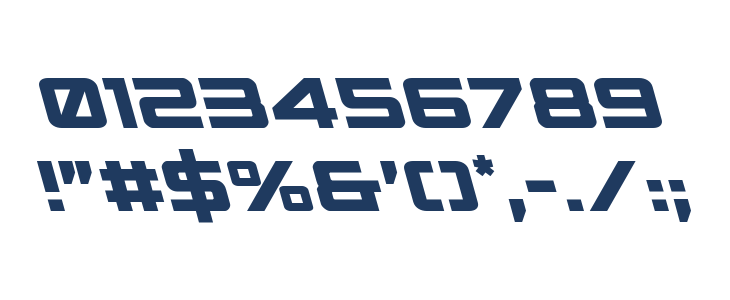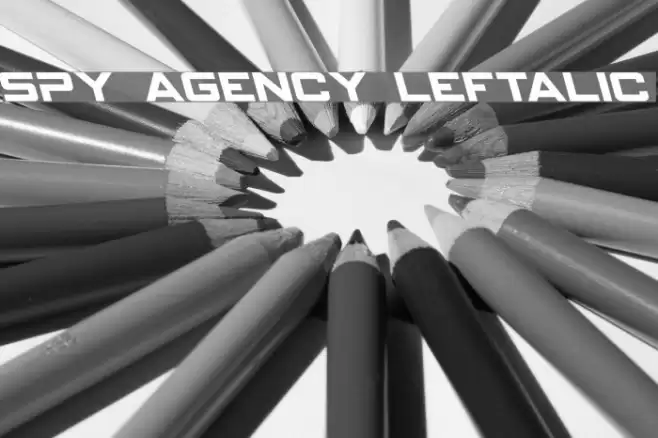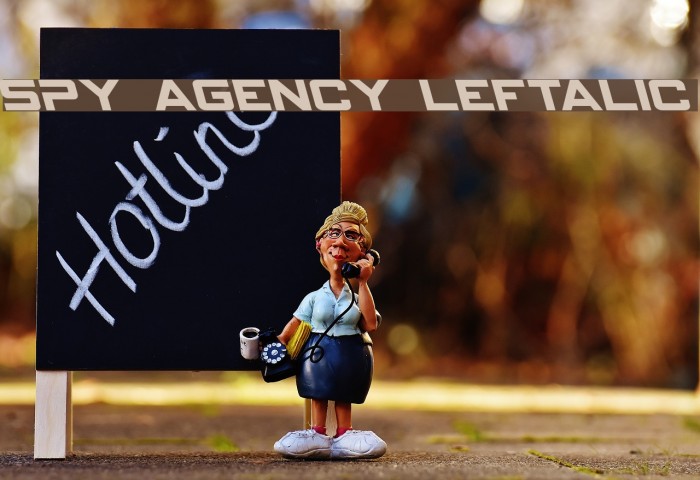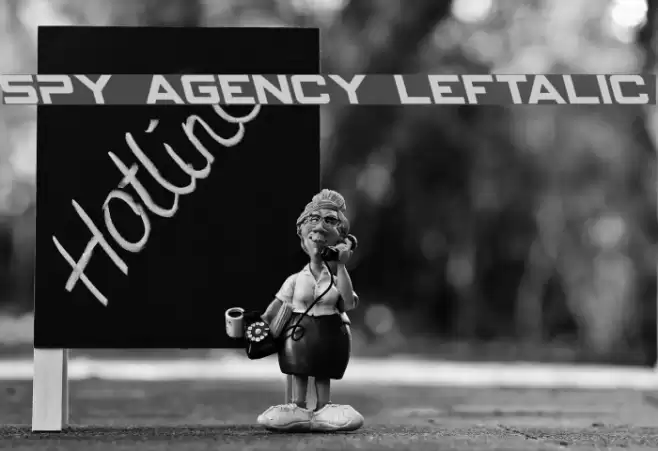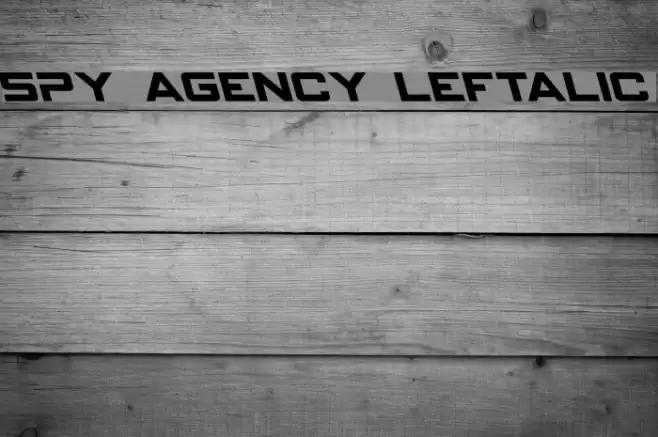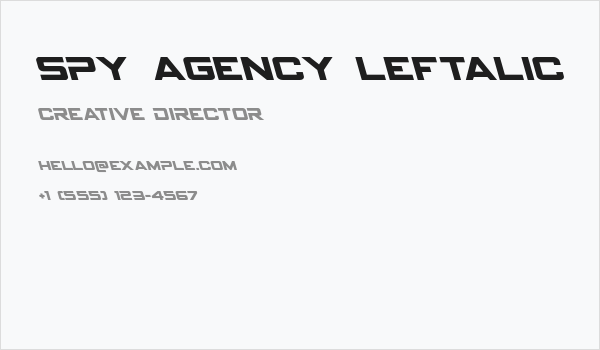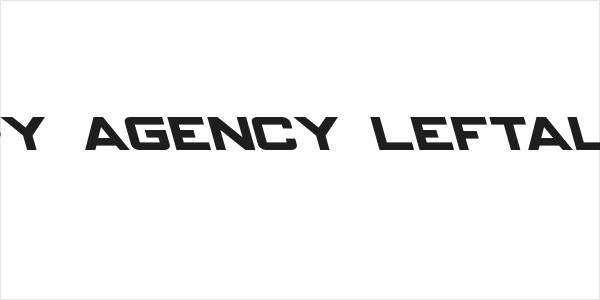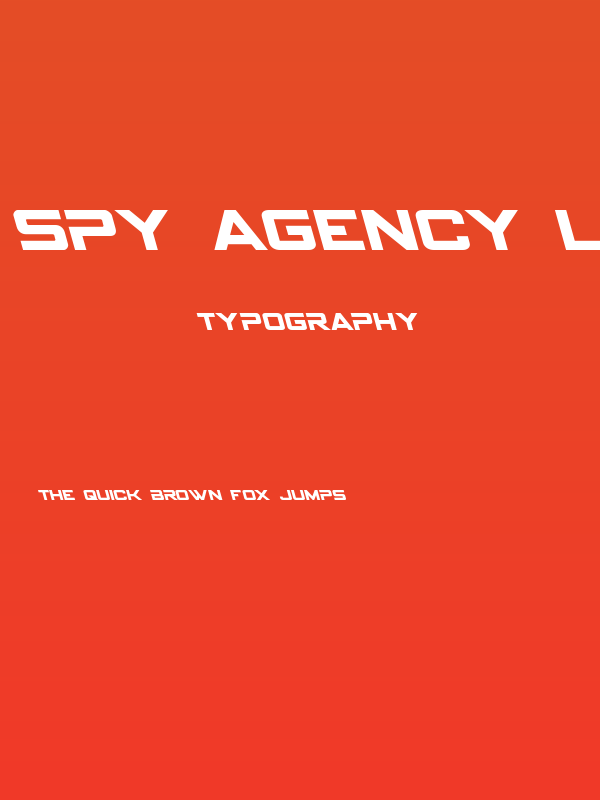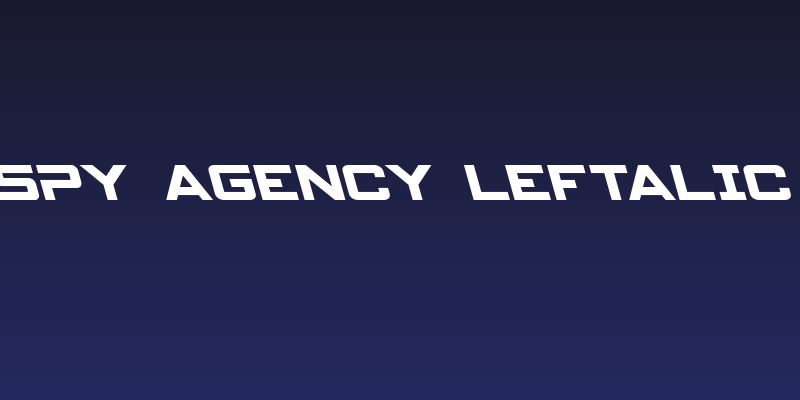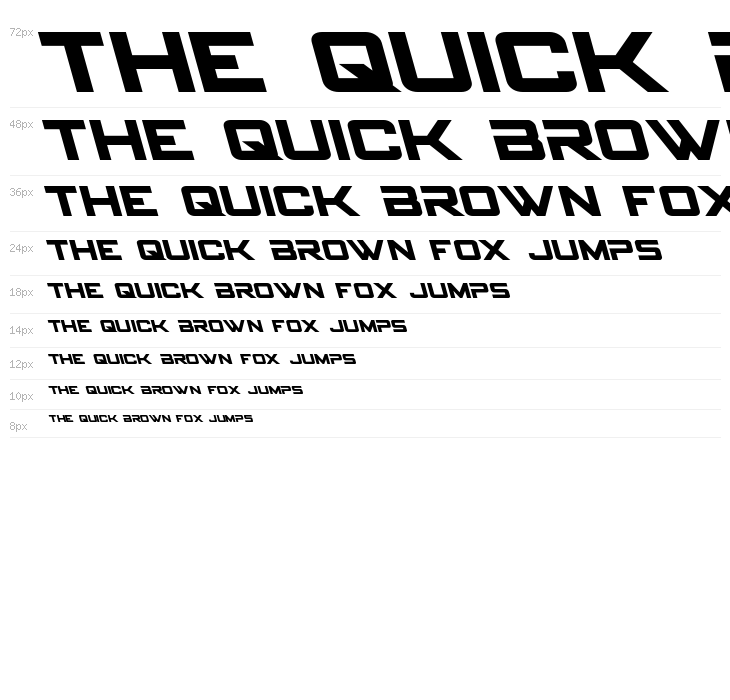
Spy Agency Leftalic Font
Spy Agency Leftalic Description
This font features a bold, angular design with a futuristic and dynamic appearance. The characters are slightly slanted, giving a sense of motion and speed, reminiscent of styles used in science fiction and action genres. The strokes are thick and consistent, with sharp edges and geometric shapes that create a strong visual impact. The uppercase and lowercase letters maintain a uniform style, while the numerals and special characters complement the overall aesthetic. This font is ideal for projects that require a modern and edgy look.
| Proposed Projects | Ideal for sci-fi movie posters, video game titles, technology branding, and sports team logos. |